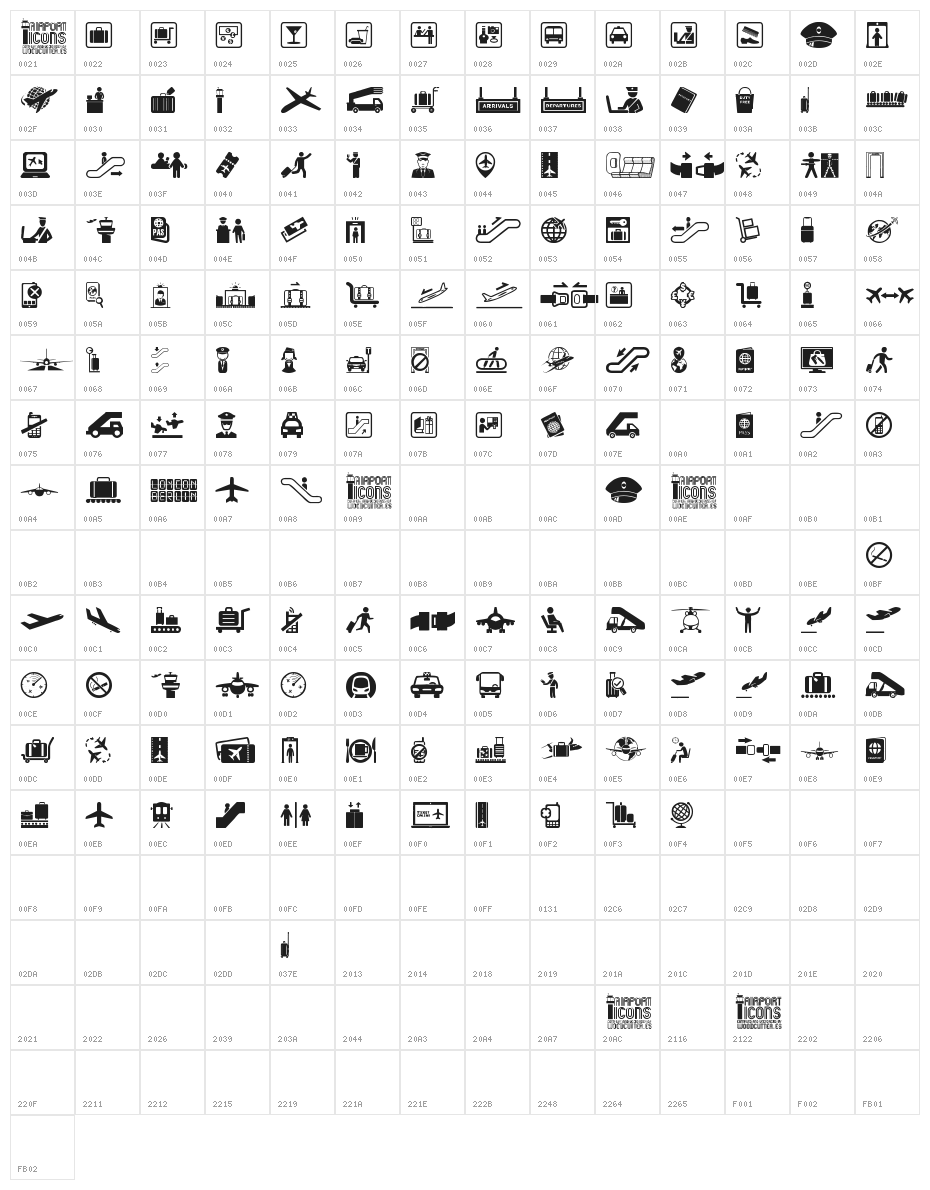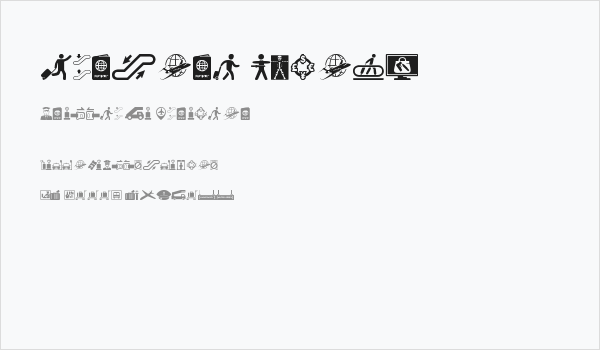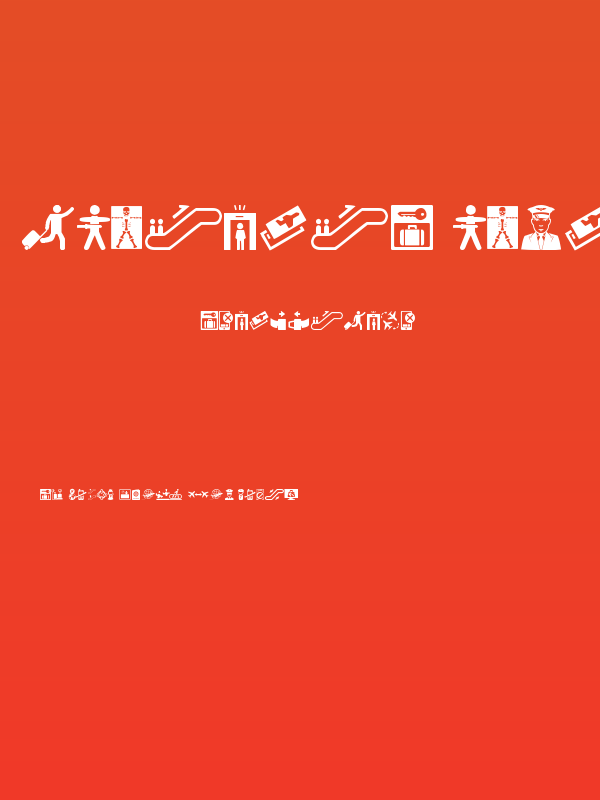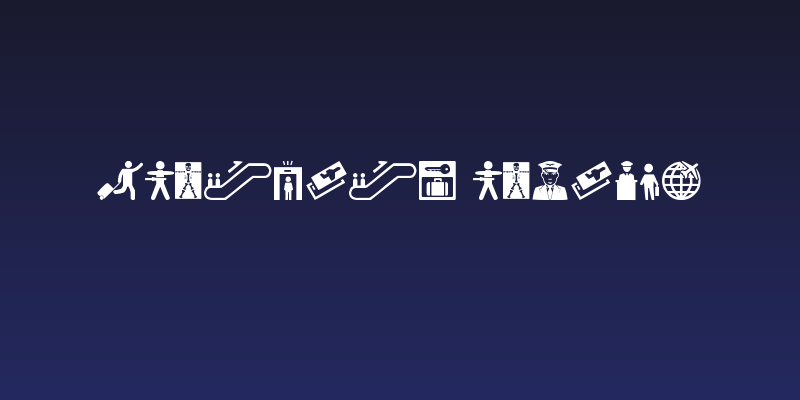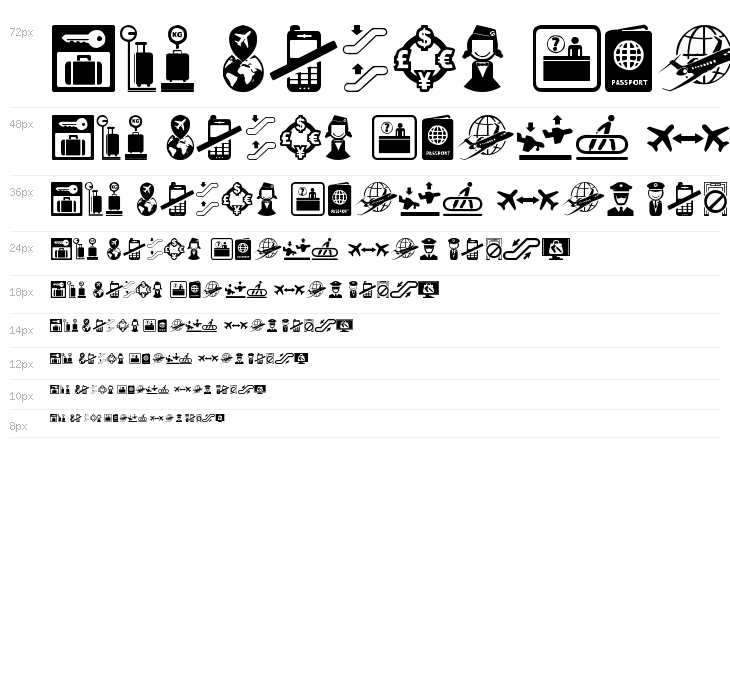
Airport Icons Font
Airport Icons Description
A set of bold, high-contrast pictograms designed to represent various airport-related concepts, including personnel, transportation, security, and amenities, using simplified and easily recognizable shapes with consistent line thickness and minimal detail.
Overall StyleModern, Functional, Pictographic
Use CaseSignage, Icons, Infographics, User Interfaces
Proposed ProjectsWayfinding signage, airport maps, travel apps, informational brochures, instructional graphics.